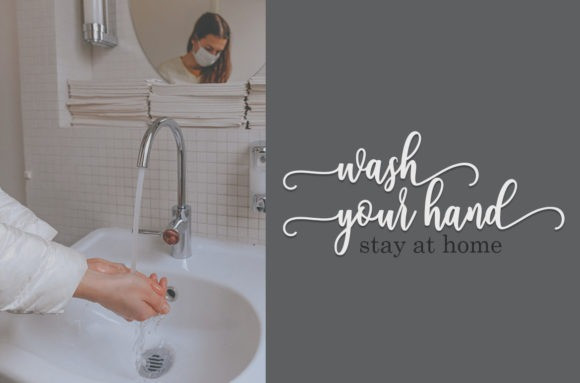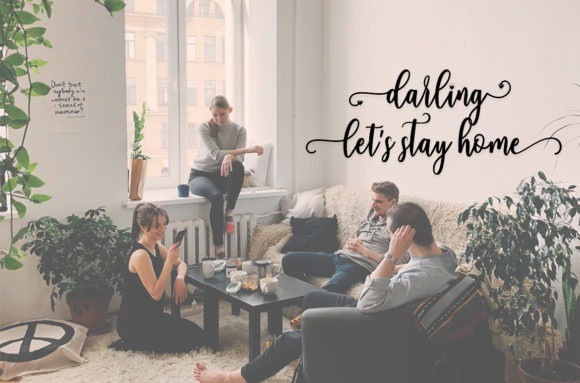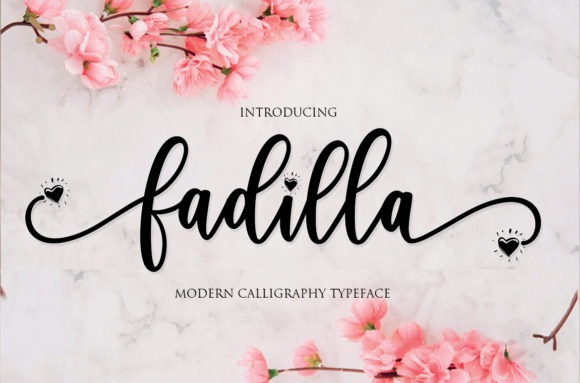
Fadilla Calligraphy Font
Fadilla feels equally charming and elegant. This stunning handwritten font is a stylish homage to classic calligraphy. It features a varying baseline, smooth lines, gorgeous glyphs and stunning alternates.